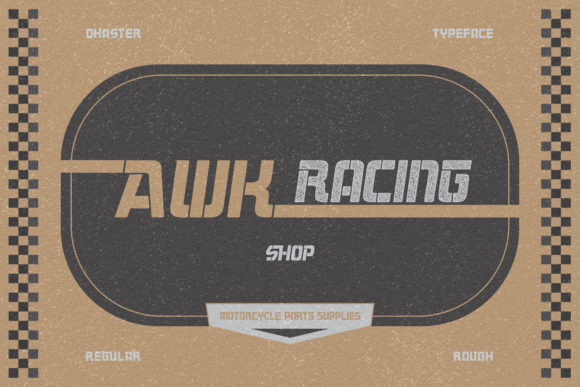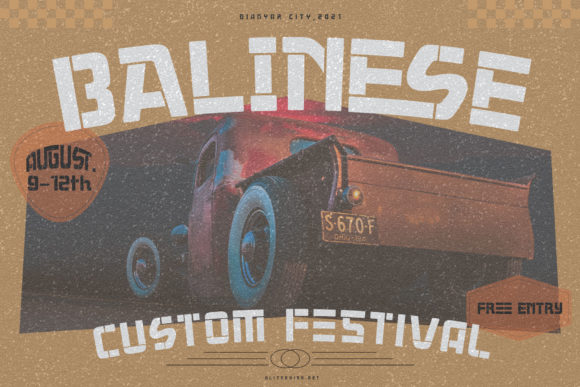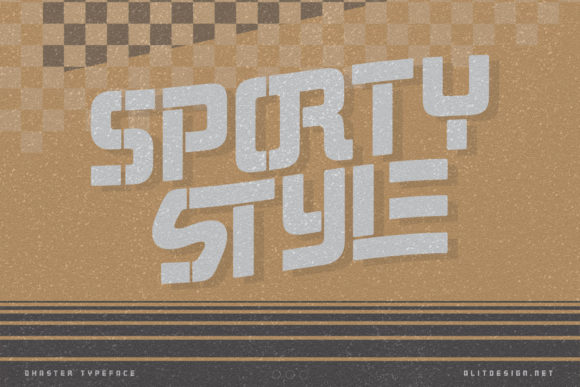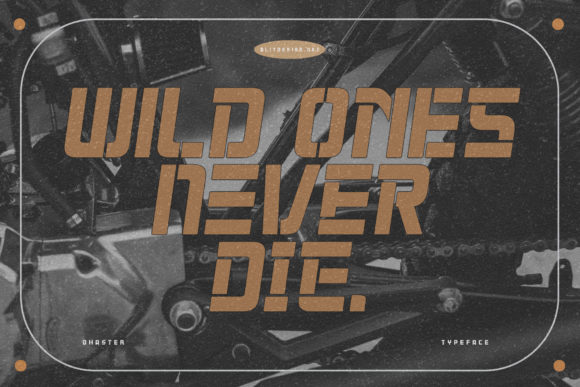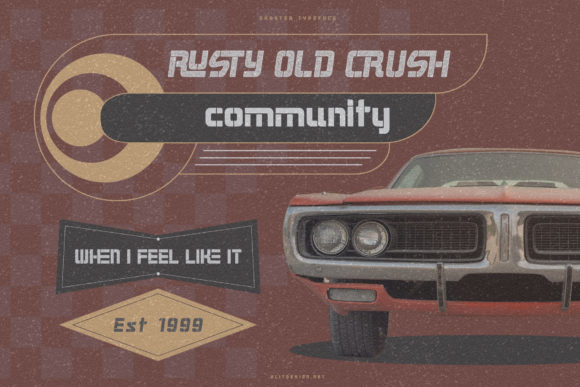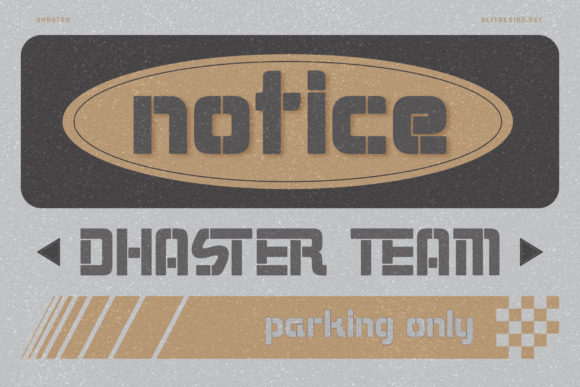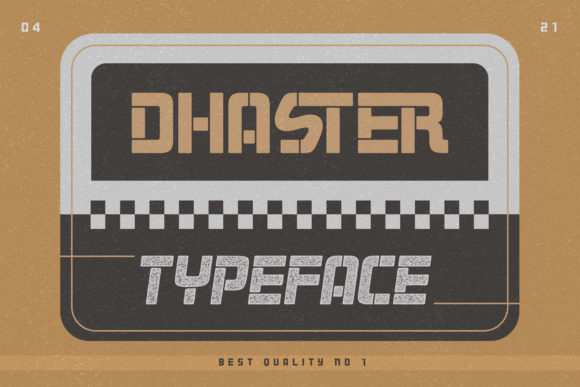
Dhaster Font: The Ultimate Display Font for Bold Designs
In the world of typography, fonts play a crucial role in making or breaking a design. When it comes to creating visually striking and attention-grabbing designs, a bold and thick lettered font is always a great choice. This is where Dhaster Font comes into play. In this article, we’ll dive into the features and benefits of Dhaster Font, and explore how it can elevate your designs to the next level.
What is Dhaster Font?
Dhaster Font is a cool, bold, and thick lettered display font that is perfect for adding a unique touch to your designs. Its robotic style gives it a futuristic and edgy feel, making it ideal for designs that require a bold statement. Whether you’re a designer, craftsperson, or simply someone who loves to dabble in typography, Dhaster Font is a great addition to your font library.
Key Features of Dhaster Font
- Bold and Thick Letters: Dhaster Font features bold and thick letters that are perfect for creating eye-catching designs.
- Robotic Style: The font’s robotic style gives it a futuristic and edgy feel, making it perfect for designs that require a bold statement.
- Display Font: Dhaster Font is a display font, making it ideal for use in headlines, titles, and other display text.
- Unique Touch: The font’s unique style adds a touch of personality to your designs, setting them apart from the rest.
Use Cases for Dhaster Font
Dhaster Font is a versatile font that can be used in a variety of design projects. Here are some use cases where Dhaster Font shines:
- Web Designs: Use Dhaster Font to create bold and eye-catching headlines, titles, and buttons for your website.
- Business Cards: Add a touch of personality to your business cards with Dhaster Font’s unique and bold style.
- Posters and Flyers: Use Dhaster Font to create striking posters and flyers that grab attention.
- Logos and Branding: Dhaster Font can be used to create bold and memorable logos and branding materials.
Benefits of Using Dhaster Font
So, why should you use Dhaster Font in your designs? Here are some benefits of using this amazing font:
- Instant Attention: Dhaster Font’s bold and thick letters grab attention instantly, making it perfect for designs that require a bold statement.
- Unique Style: The font’s unique robotic style adds a touch of personality to your designs, setting them apart from the rest.
- Versatility: Dhaster Font can be used in a variety of design projects, from web designs to business cards and posters.
- Easy to Read: Despite its bold style, Dhaster Font is easy to read, making it perfect for use in headlines and titles.
Tips for Using Dhaster Font
Here are some tips for using Dhaster Font effectively in your designs:
- Use it Sparingly: Use Dhaster Font sparingly to avoid overwhelming your design. It’s perfect for headlines and titles, but use a simpler font for body text.
- Experiment with Colors: Dhaster Font looks great in bold colors. Experiment with different colors to find the one that works best for your design.
- Pair it with Other Fonts: Dhaster Font can be paired with other fonts to create a unique and interesting design. Experiment with different font combinations to find the one that works best for your project.
In conclusion, Dhaster Font is a cool, bold, and thick lettered display font that is perfect for adding a unique touch to your designs. Its robotic style gives it a futuristic and edgy feel, making it ideal for designs that require a bold statement. With its versatility, ease of use, and bold style, Dhaster Font is a great addition to any designer’s font library. So, go ahead and experiment with Dhaster Font in your next design project – you won’t be disappointed!